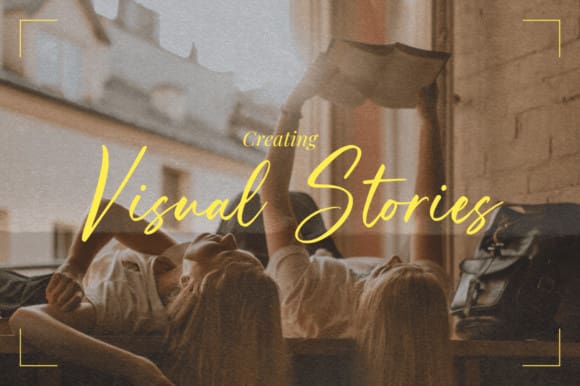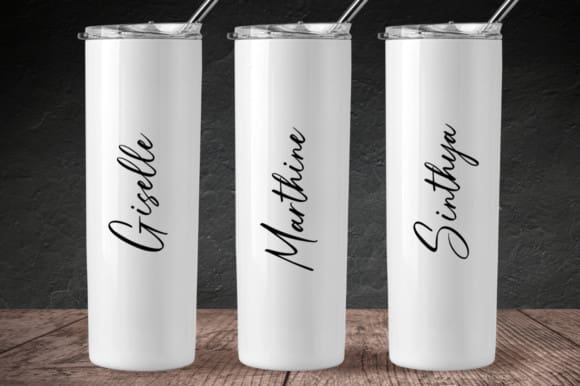
Onlytime Script Font
Onlytime Script Font, a script signature font that embodies elegance and exclusivity. With its flowing strokes and delicate curves, this font captures the essence of a handwritten signature. Perfect for projects that require a personal touch and a touch of luxury, such as logos, branding, or wedding invitations. “Onlytime” adds a timeless charm and sophistication to your designs, ensuring they make a lasting impression with their signature style.